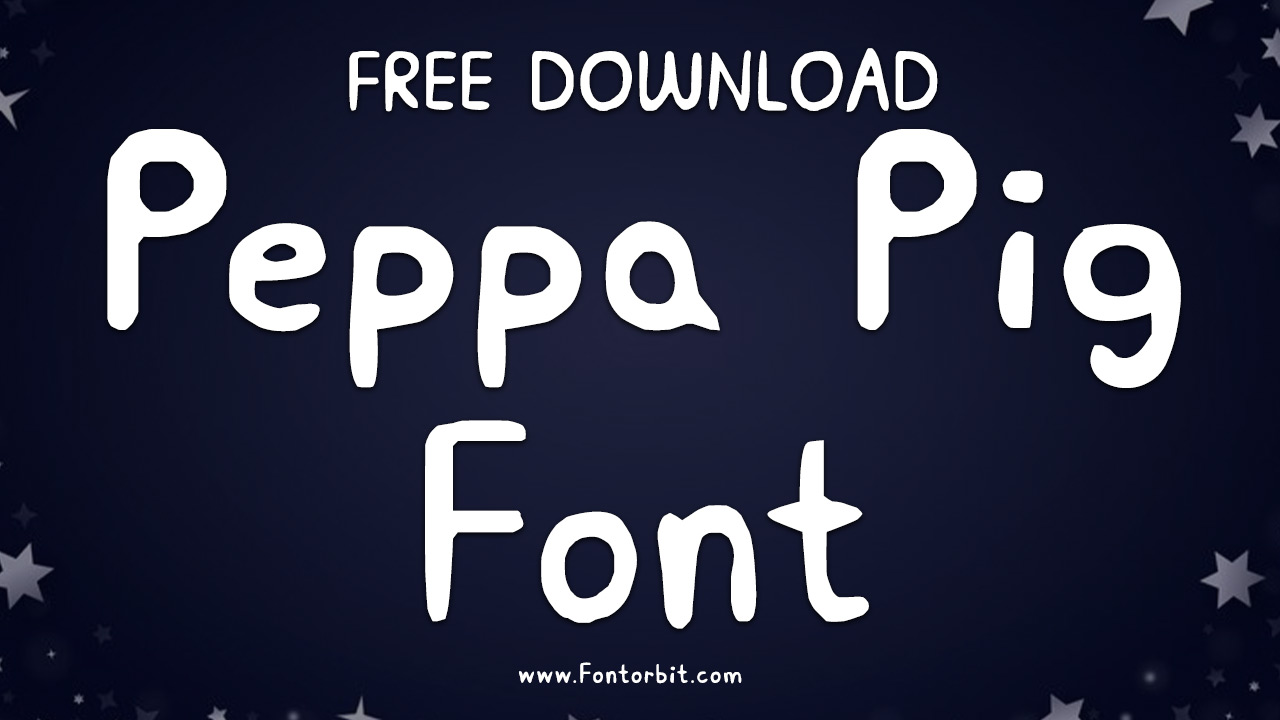
The Peppa Pig font, often attributed to the KiddieFonts collection, mimics the playful aesthetic of the famous children’s cartoon logo.
It was designed by KiddieFonts and released in 2010. The font is categorized under sans-serif, specifically styled to give a youthful, handwritten look. Though not officially affiliated with the show, it perfectly emulates the quirky and innocent vibe of Peppa Pig.
The Peppa Pig font family includes whimsical, rounded characters that resemble hand-drawn artwork. This font is great for informal contexts, especially ones targeted at children. The font family includes:
a. Peppa Pig Regular
Notable Uses Of The Peppa Pig Font
This font has become quite popular in various informal and child-related designs. It is commonly used for:
- Children’s party invitations
- School projects
- Kid-centric websites and blogs
- Posters for children’s events
- T-shirts, bags, and other merchandise
The Peppa Pig font is perfect for designs that aim to appeal to younger audiences or projects that want to evoke a sense of childhood and playfulness. It is ideal for:
- Educational materials for young children
- Branding for toy stores or children’s clothing lines
- Fun, vibrant posters or flyers
- Kids’ arts and crafts templates
The Peppa Pig font brings a sense of joy and playfulness to any project, making it a go-to choice for children’s media. Its quirky and friendly style resonates well with both children and parents, making it ideal for kid-related branding and designs.
5.What Type Of Font Is Peppa Pig?
Peppa Pig is a sans-serif font with a hand-drawn, casual appearance.